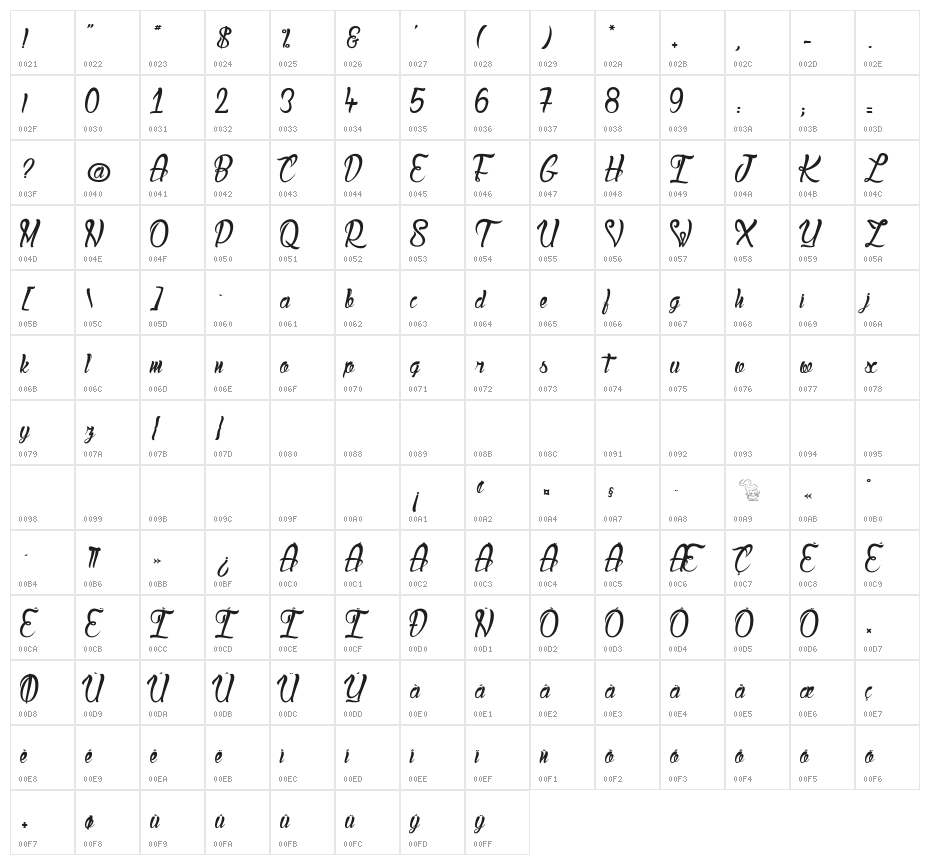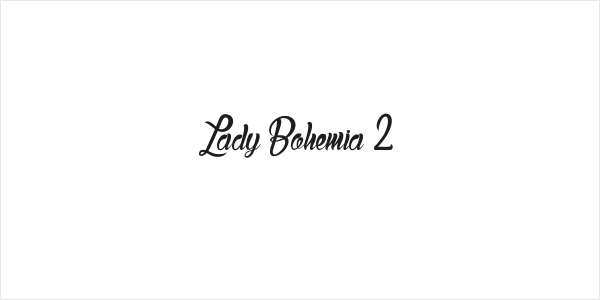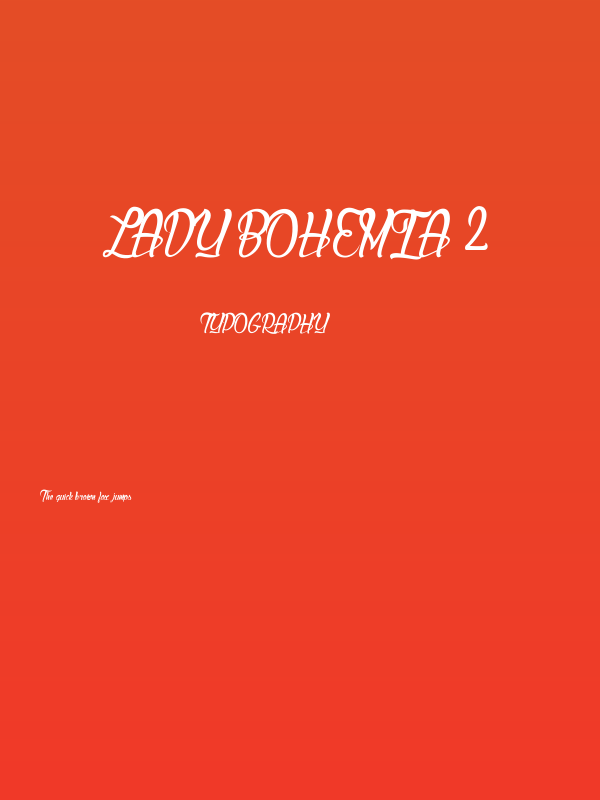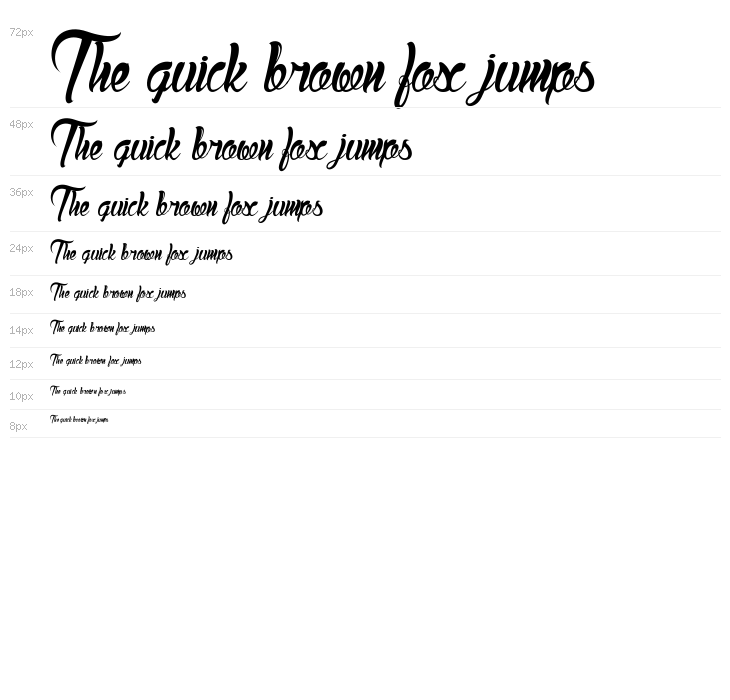
Lady Bohemia 2 Font
Lady Bohemia 2 Description
This font features a flowing, cursive style with elegant loops and swashes, giving it a sophisticated and artistic appearance. The uppercase letters are bold and dramatic, with exaggerated curves that add a sense of movement and flair. The lowercase letters maintain a consistent flow, complementing the uppercase with their graceful, connected strokes. Numbers and special characters are designed with the same fluidity, ensuring a cohesive look across all elements. This font's unique style makes it stand out, perfect for creative and expressive projects.